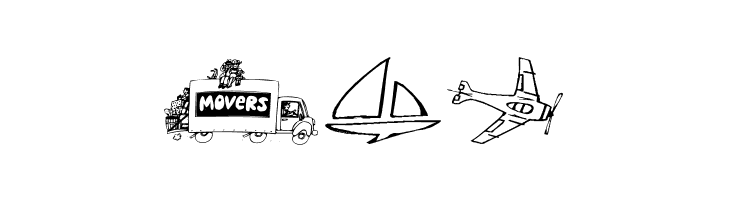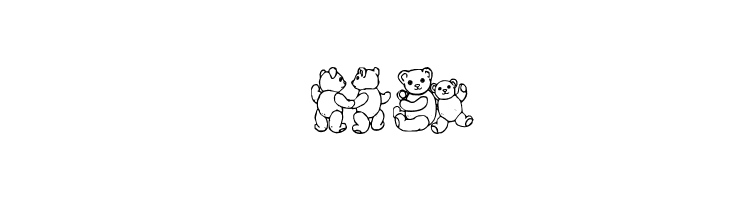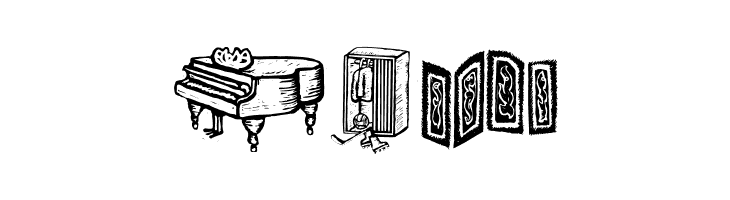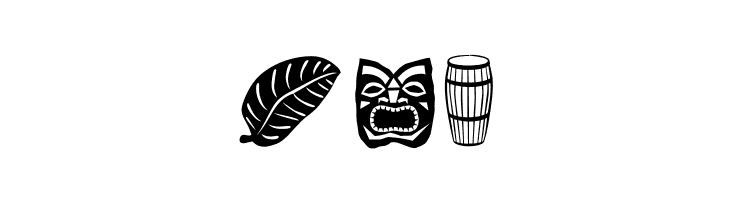
A decorative font with detailed vehicular illustrations for each character.
Cartoon animal illustrations form each character for a playful, child-friendly look.
Hand-drawn furniture and decor illustrations form each character in a playful, decorative style.
A decorative font with detailed amphibian illustrations for each character.
A tropical-themed dingbat font with detailed island-inspired icons.